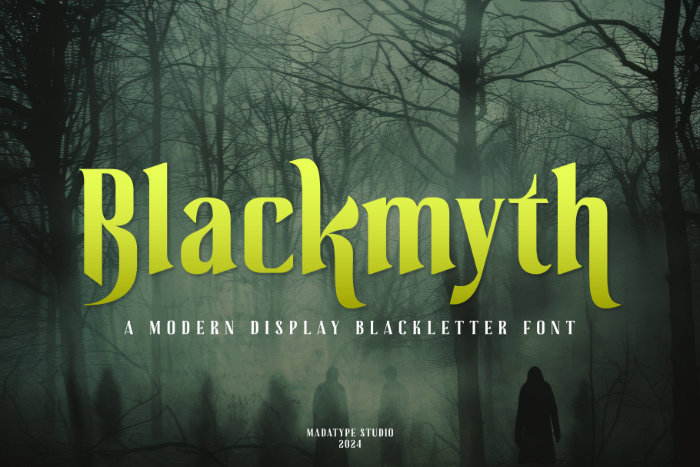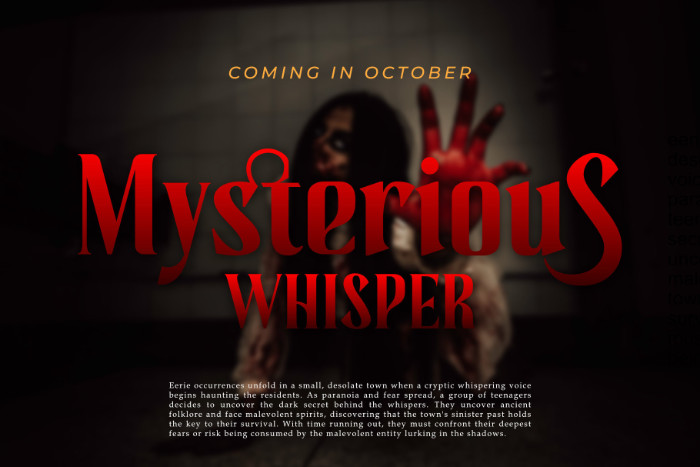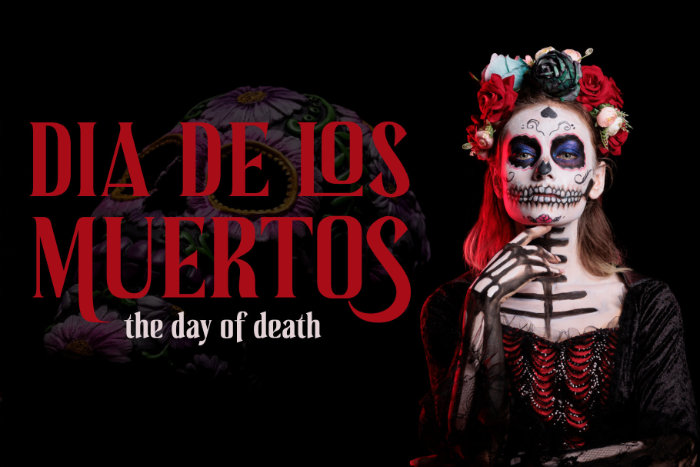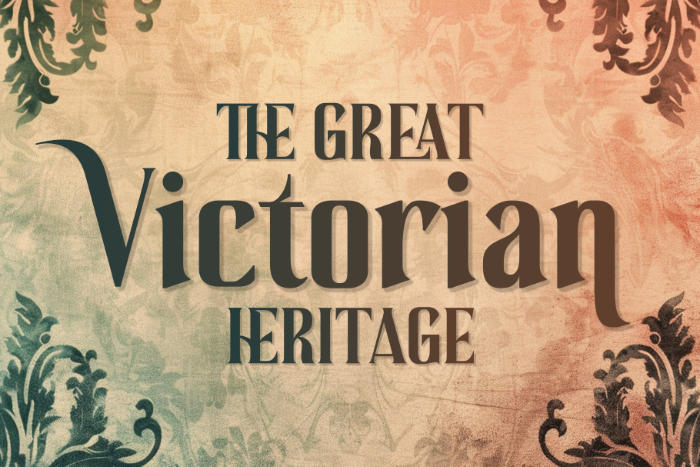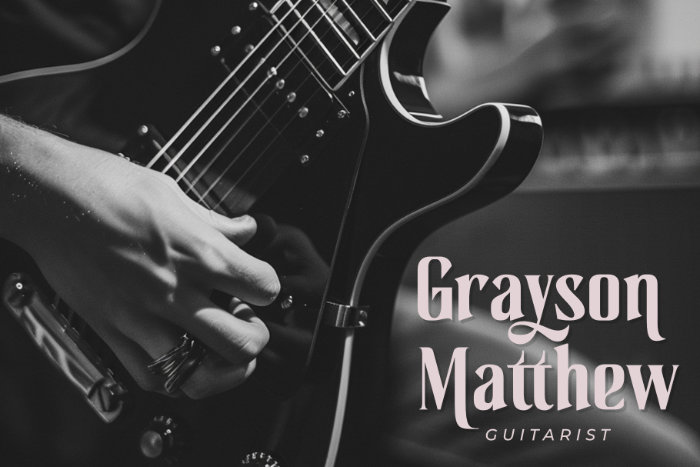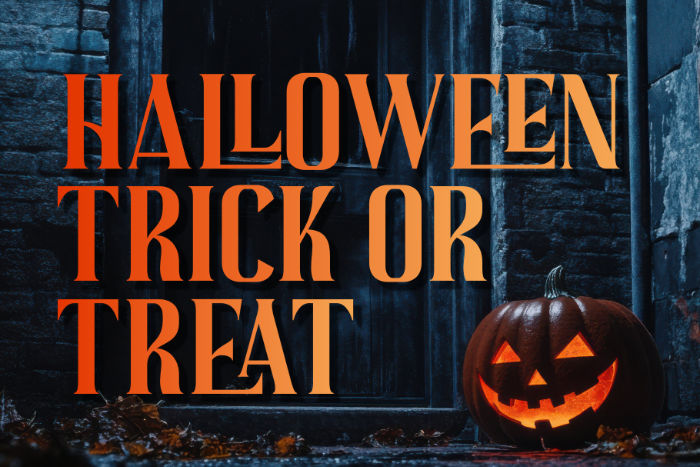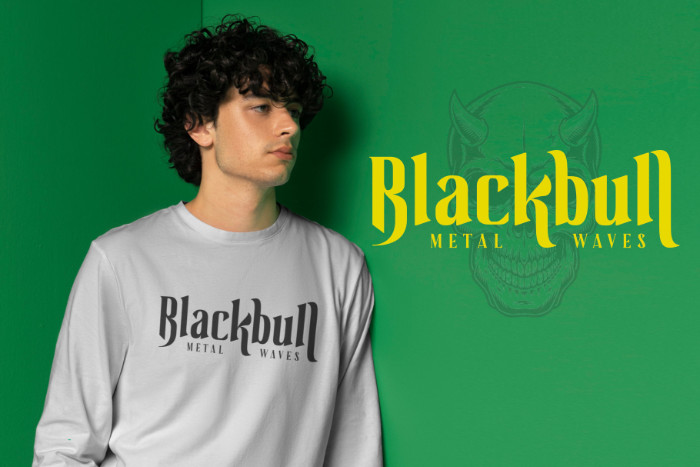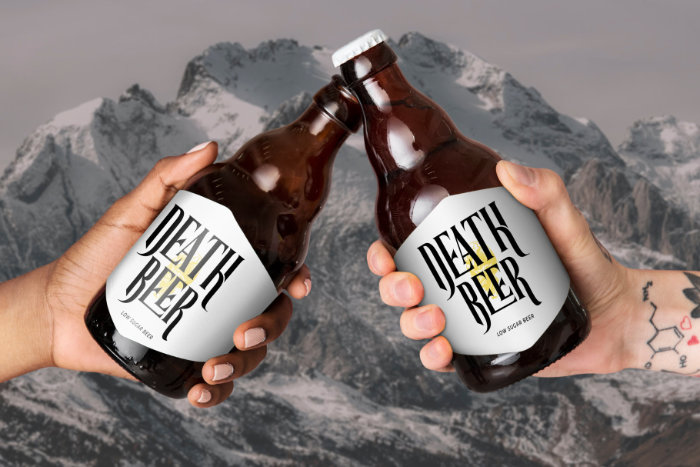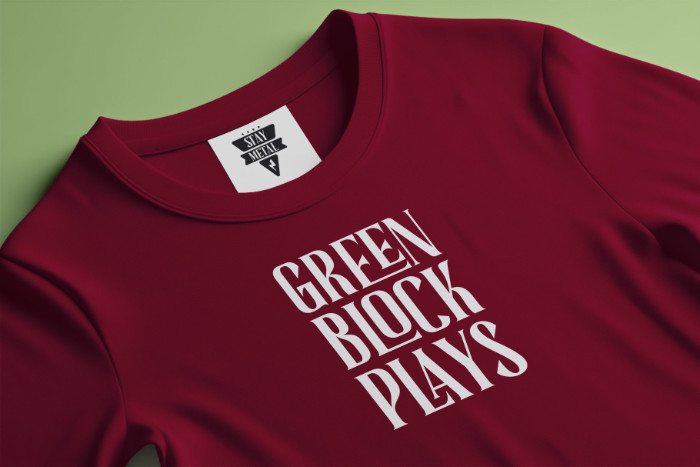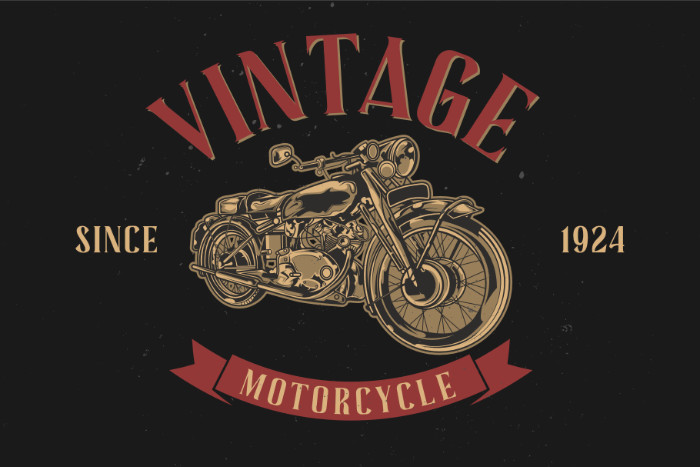
Blackmyth
Meet Blackmyth, the modern blackletter font that blends timeless elegance with contemporary flair. Crafted for those who value tradition but crave innovation, Blackmyth stands as a testament to the art of typography. With its varied alternates and ligatures, this font offers a versatile palette for designers, ensuring each project is as unique as the next.
Whether you’re branding a business, designing a logo, or embarking on a creative project, Blackmyth’s intricate details and bold aesthetics will captivate and inspire. It’s a font that commands attention and conveys a story, transforming any piece into a work of art. Ideal for those who dare to be different, Blackmyth is more than just a typeface; it’s an experience.
Explore the depths of design potential and let your imagination run wild with Blackmyth. Create, captivate, and conquer with the font that knows no bounds.